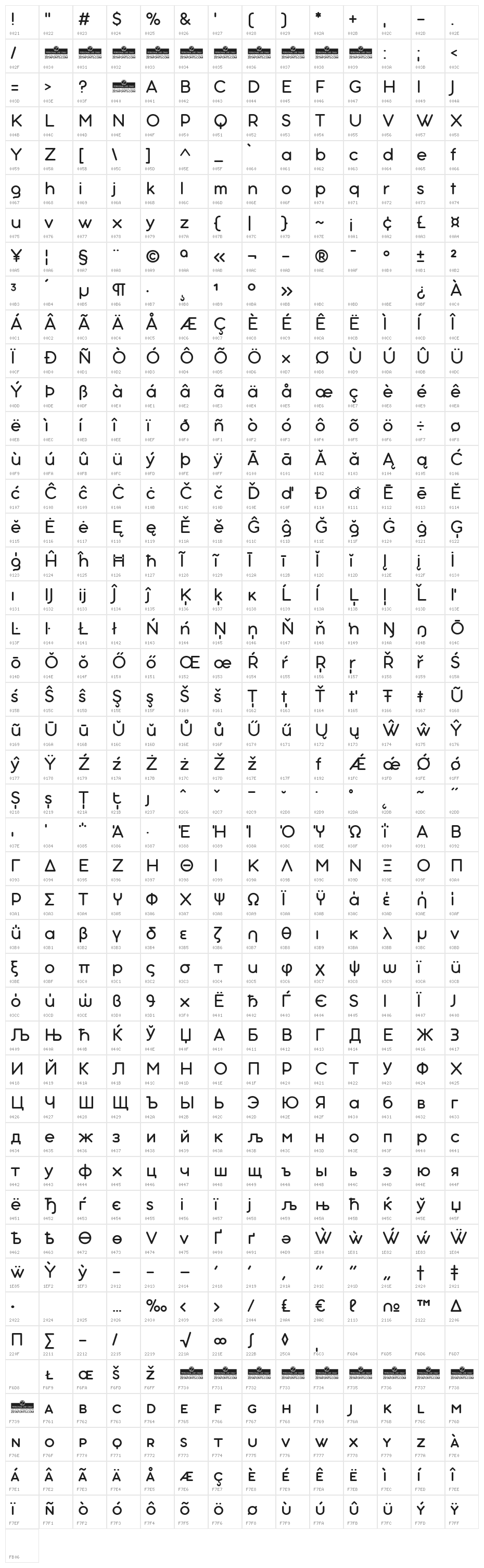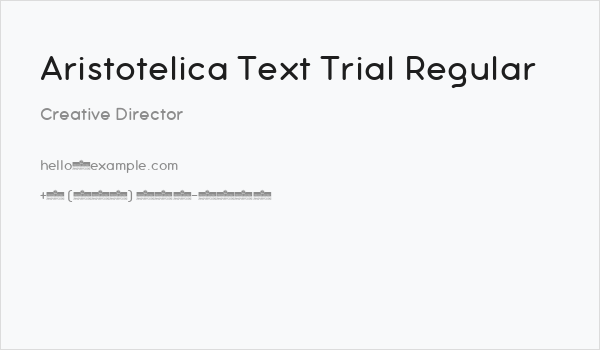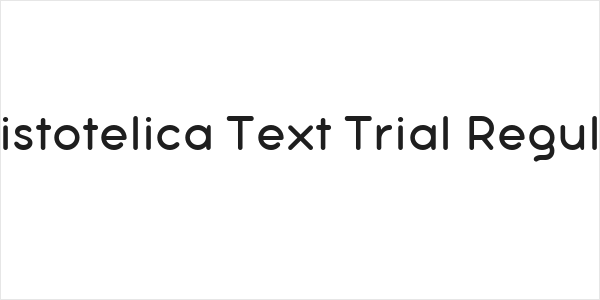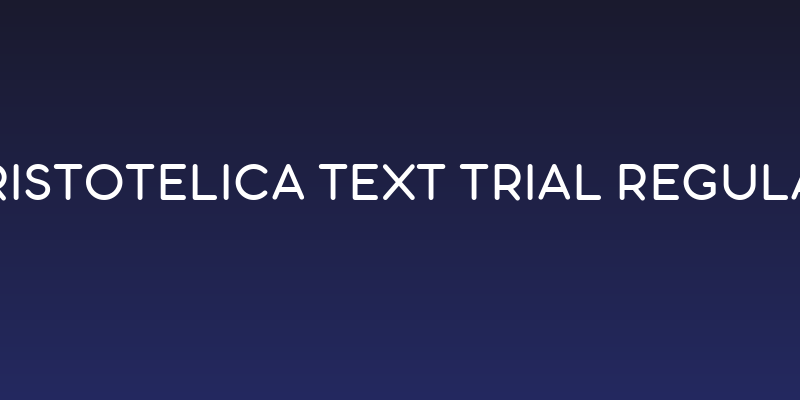
Aristotelica Text Trial Regular Font
Aristotelica Text Trial Regular Description
This font features a clean and modern sans-serif design, characterized by its rounded edges and uniform stroke width. The letters are well-proportioned, offering a harmonious and balanced appearance. The uppercase and lowercase characters maintain a consistent style, ensuring readability across different text sizes. The numerals and special characters are designed to complement the alphabet, providing a cohesive look. This font's simplicity and clarity make it versatile for various design applications.
| Proposed Projects | Ideal for branding, web design, user interfaces, and print materials where clarity and modernity are essential. |